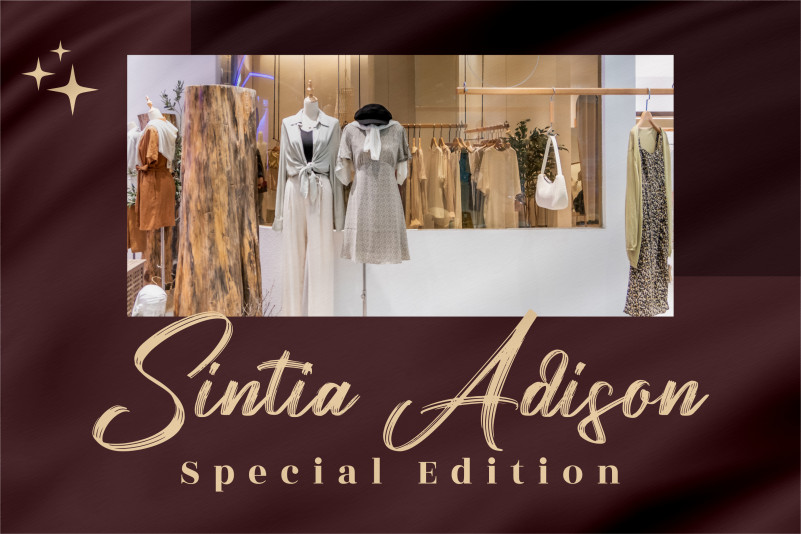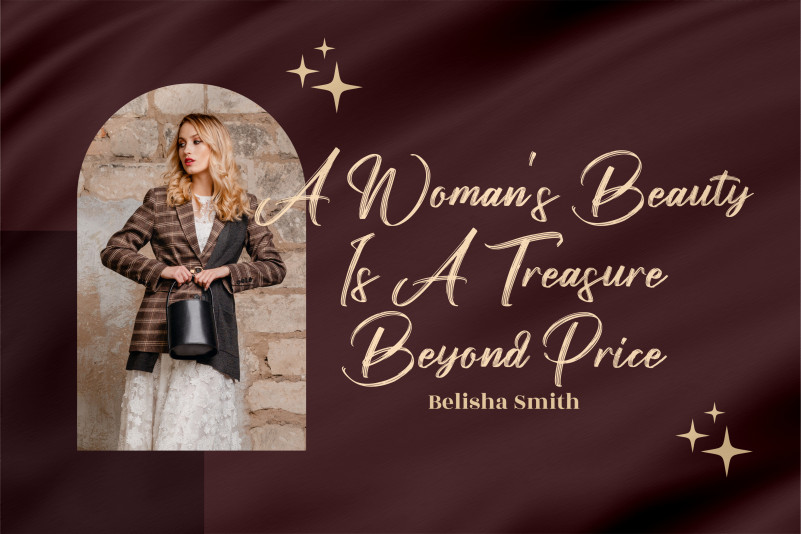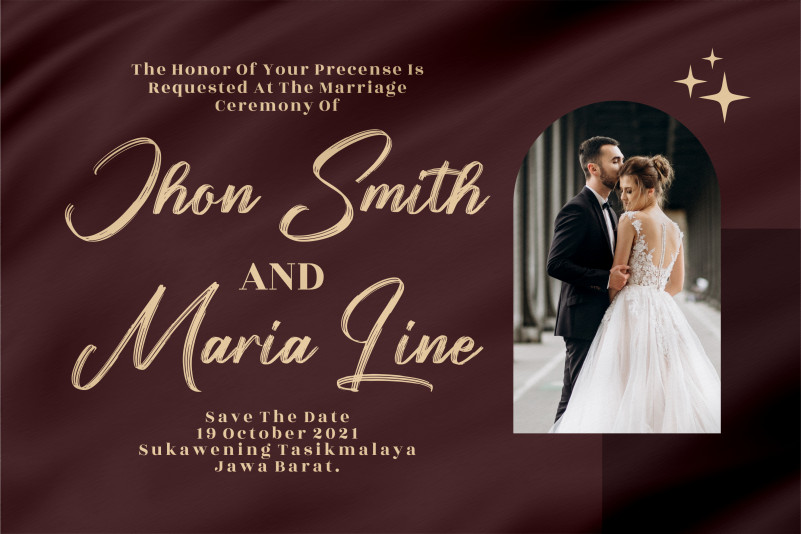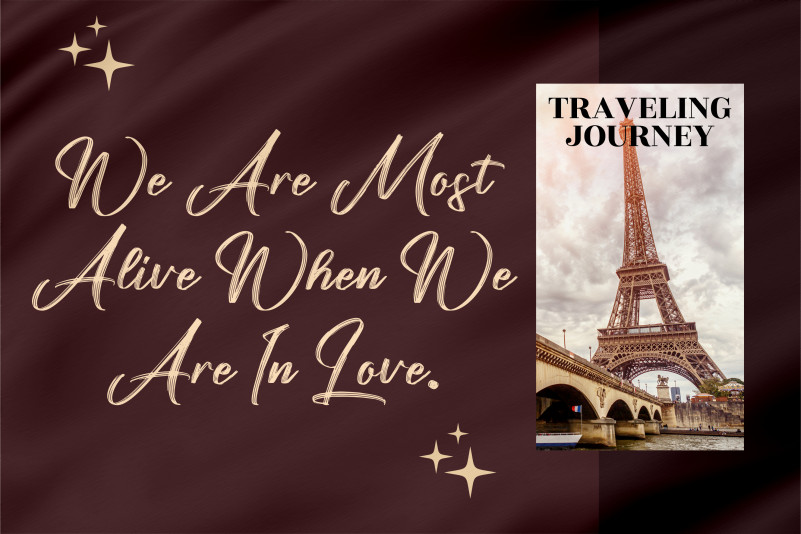
Amsterdam Laviera Font
Amsterdam Laviera Brush Font
This is a handwritten font, suitable for any projects such as: logos, branding projects, homeware designs, product packaging, mugs, quotes, posters, shopping bags, t-shirts, book covers, name card, invitation cards, greeting cards, label, photography, watermark, special events, and all your other luxury projects that need a handwritten taste.